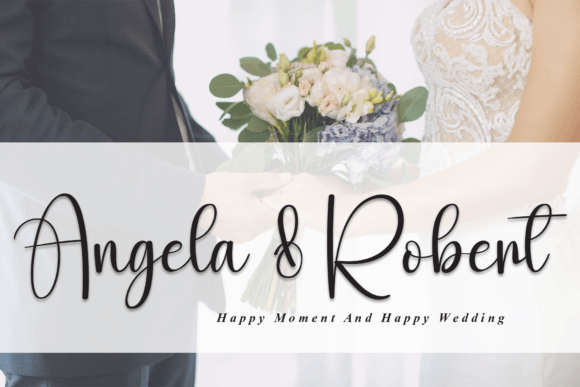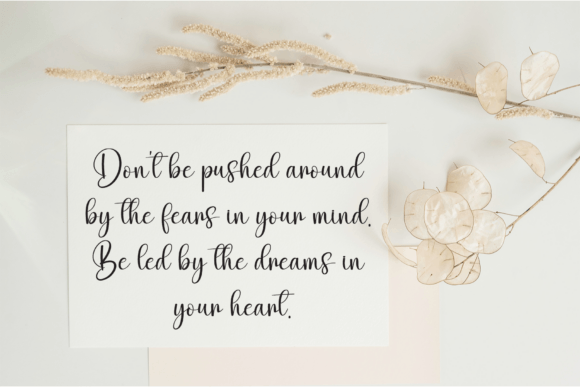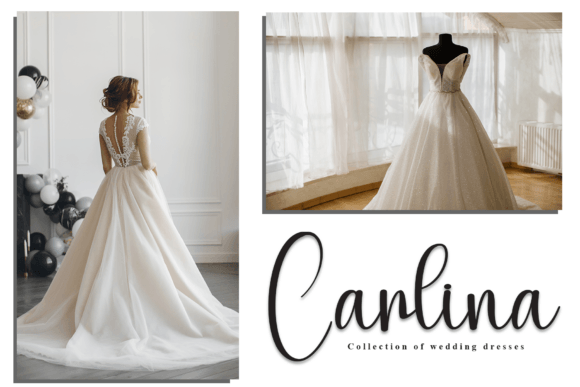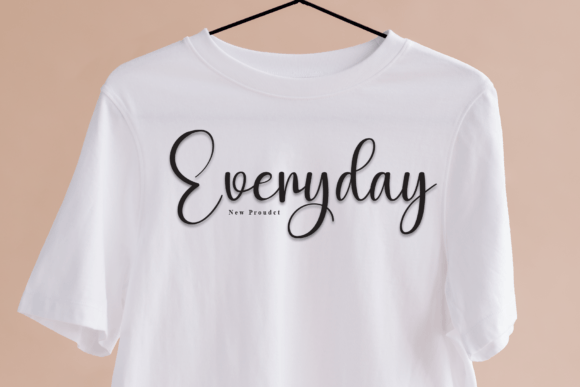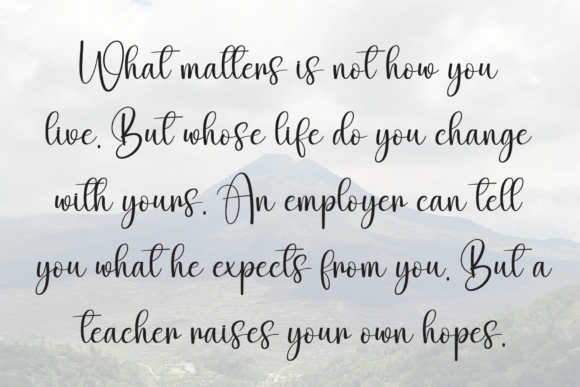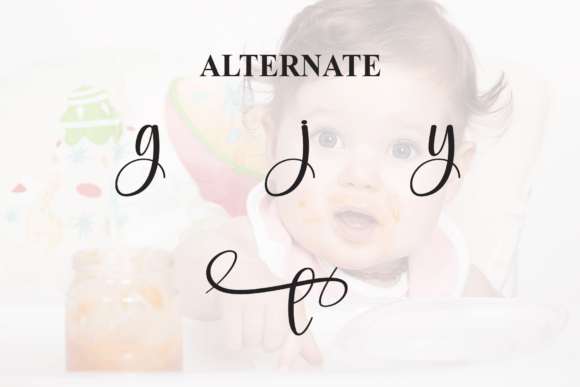
Unleashing Creativity with Delight Baby Font
Have you ever stumbled upon a font that makes your creative vision sparkle? It’s that magical moment when you know you’ve found the perfect tool to bring your ideas to life. For designers and artists, discovering a font that captures the essence of elegance and whimsy is a treasure. That’s exactly what Delight Baby Font offers – a delicate, handcrafted script font designed to add a touch of sophistication to any project.
Whether you’re crafting a stunning Instagram post or creating a custom wedding invitation, Delight Baby Font is the perfect companion. This enchanting font is not only visually stunning but also versatile, making it an invaluable asset for designers looking to elevate their creative projects. With Delight Baby Font, you’ll be able to infuse your designs with a sense of wonder and charm that’s sure to captivate your audience.
Delight Baby Font Key Features
- Font Family: Delight Baby, a playful and modern script font designed for baby-related projects.
- Unique Characteristics: Delight Baby Font features a unique, handwritten style with swashes and flourishes, making it ideal for baby-themed projects, invitations, and announcements.
Delight Baby Font Review
As a designer, I was excited to dive into the Delight Baby Font. ✨ The first thing that caught my attention was the cute and playful feel of the font. It’s perfect for creating adorable designs for kids, nursery decor, or even baby-related products. The font comes with a range of weights and styles, making it easy to customize and match with different design elements.
Another great feature of the Delight Baby Font is its versatility. ✨ It can be used for various projects, from digital design to print, and even web design. The font is also highly legible, making it perfect for creating text-heavy designs.
Limitsations
- ⚠️ Limited character set: While the font comes with a range of weights and styles, the character set is relatively limited. This may not be ideal for designers who need to use special characters or punctuation.
- ⚠️ Not ideal for large body text: While the font is highly legible, it’s not ideal for large body text. It’s best used for headings, titles, or short paragraphs.
Overall, I think the Delight Baby Font is a great addition to any designer’s toolkit. It’s perfect for creating cute and playful designs for kids and babies. However, it’s essential to be aware of its limitations, especially when it comes to character set and large body text. With that in mind, I would definitely recommend this font for designers who are looking for a fun and versatile font for their next project.